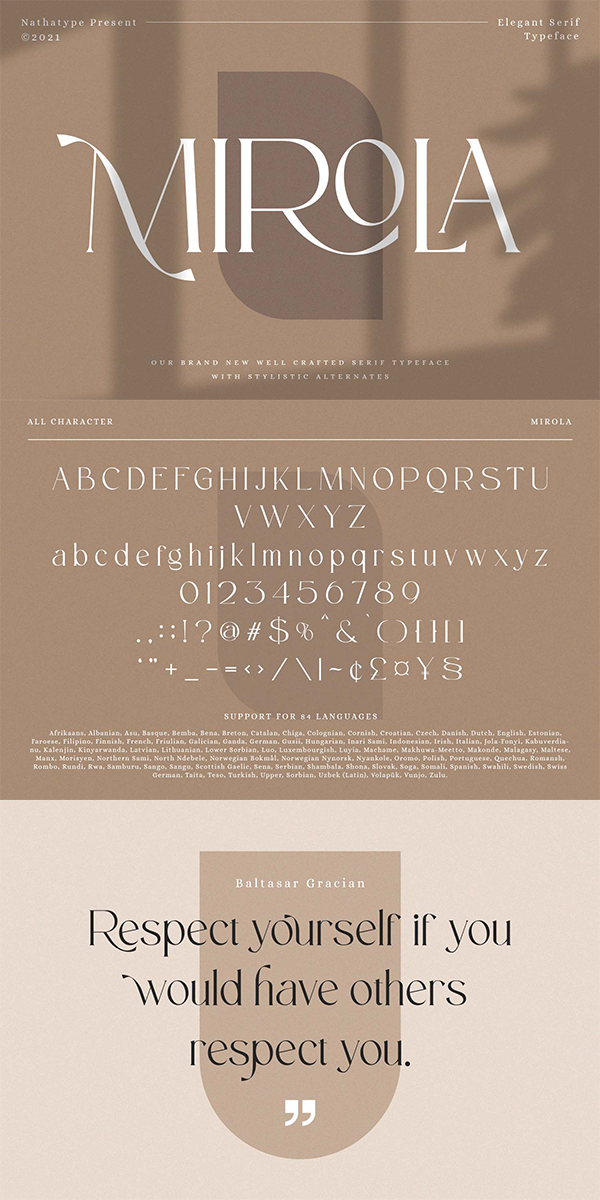
MIROLA Font
About MIROLA
Mirola is a serif used in modern styles. It fits your designs. It’s effortlessly beautiful and undoubtedly gorgeous. It’s brave to face uncertainty. These all represent you. Go ahead and use it on your websites, social media brandings, Pinterest banners, printed invitations, and more!